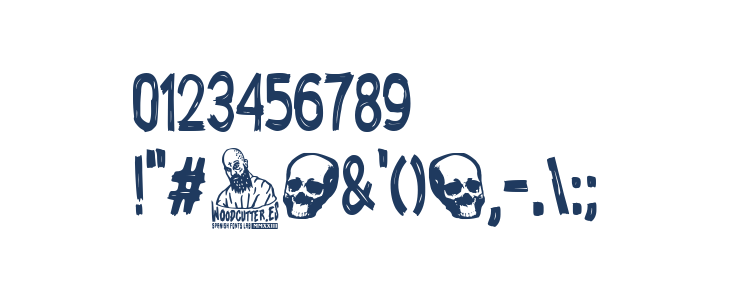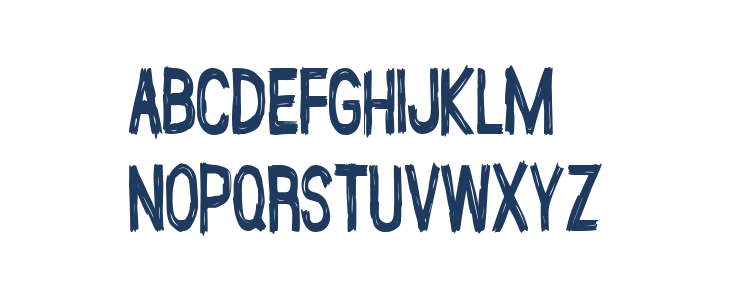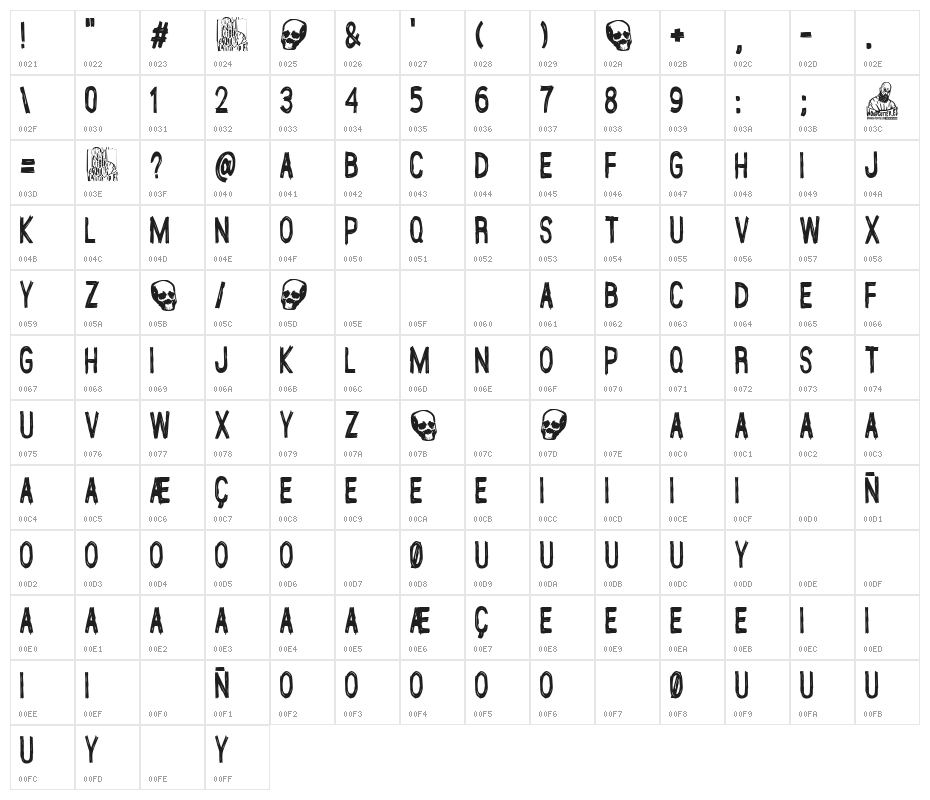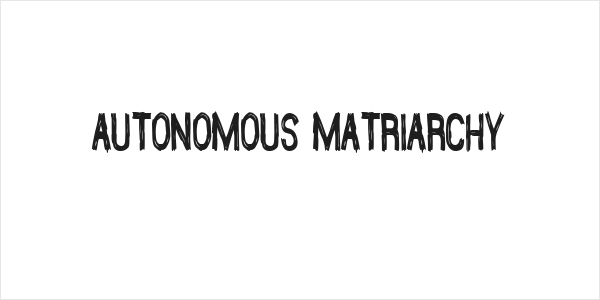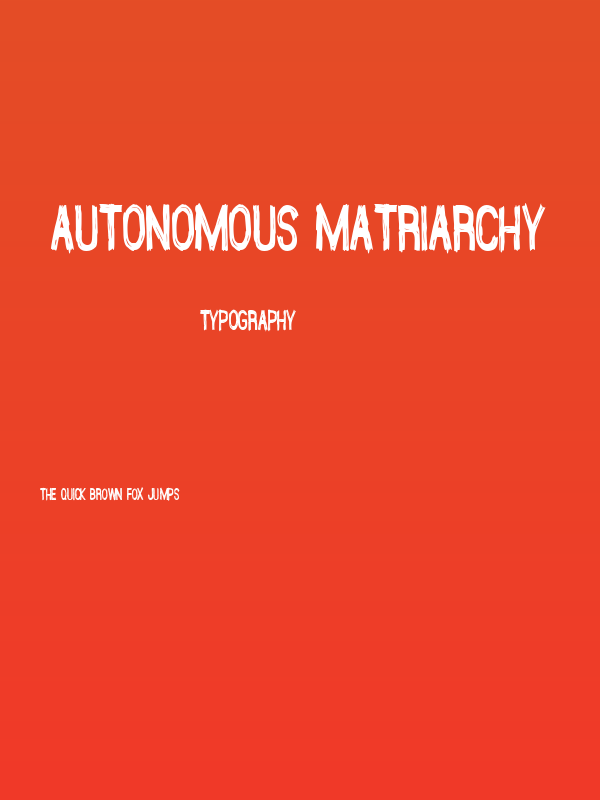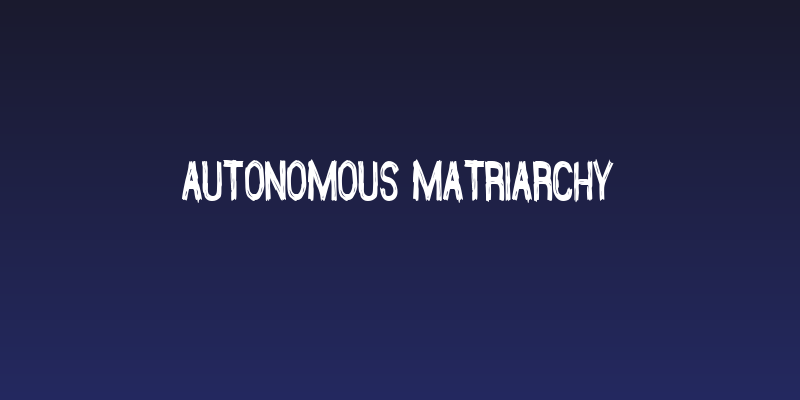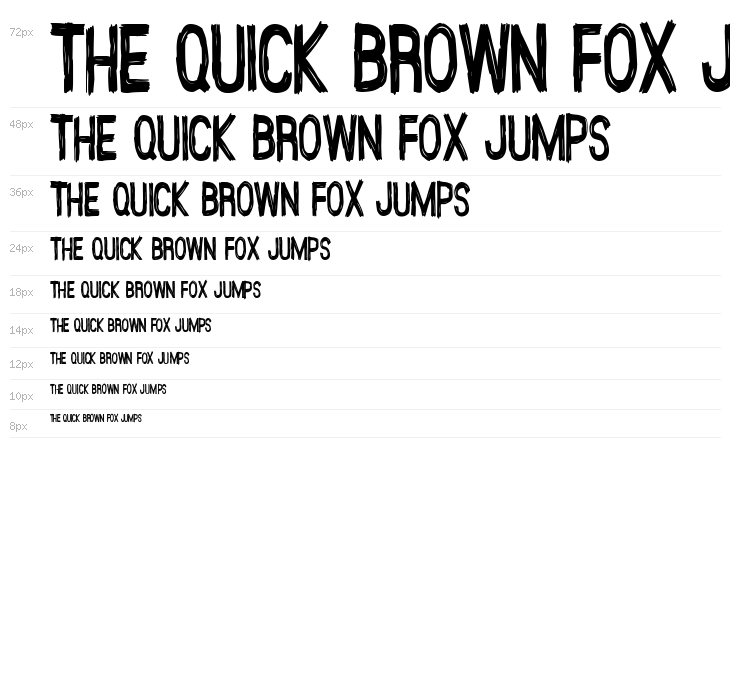
Autonomous Matriarchy Font
Autonomous Matriarchy Description
A rough, hand-drawn display font with uneven strokes and a distressed, sketch-like texture. The characters are uppercase with a tall, narrow appearance and irregular edges, giving a raw, energetic feel. Numbers and punctuation follow the same distressed style, and some symbols include illustrative elements.
| Width | Condensed |
| Overall Style | Decorative, Grunge, Hand-drawn |
| Use Case | Headlines, Posters, Logos, Themed graphics |
| Proposed Projects | Posters, horror or punk-themed graphics, album covers, event flyers, edgy branding. |